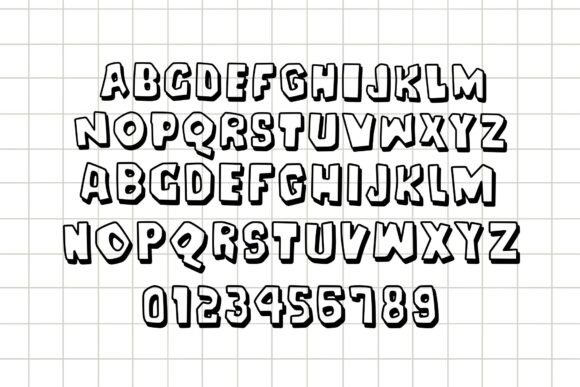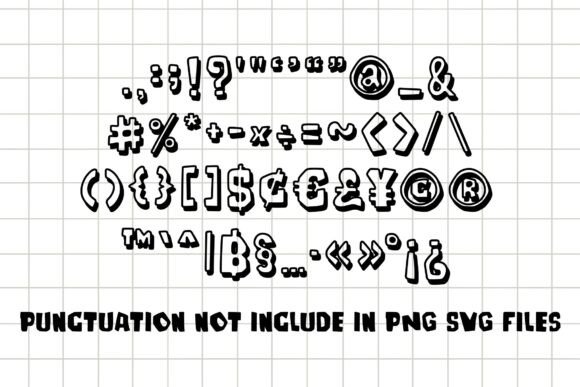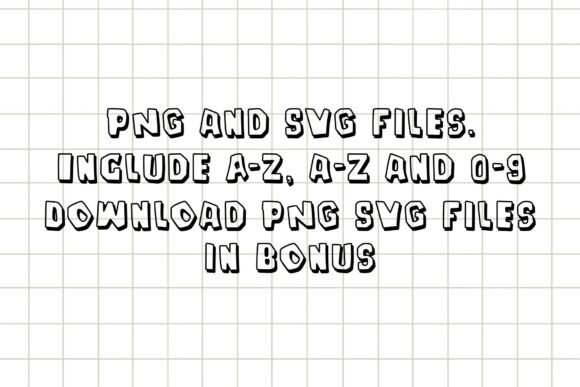
Baal Shadow Font: The Ultimate Choice for Eye-Catching Titles and Creative Projects
In the world of typography, fonts play a crucial role in conveying the tone and personality of a design. When it comes to creating eye-catching titles and creative projects, a bold and playful font can make all the difference. This is where Baal Shadow Font comes in – a chunky, hand-drawn outline font with a shadow that’s perfect for designers and crafters looking to add a touch of personality to their work.
What is Baal Shadow Font?
Baal Shadow Font is a unique and versatile font that’s designed to make a statement. Its bold, outline style with a shadow gives it a distinctive look that’s sure to grab attention. The font’s chunky, hand-drawn style makes it perfect for a wide range of creative projects, from posters and banners to stickers, invitations, t-shirt designs, and digital crafts.
Key Features of Baal Shadow Font
• Bold and Playful Style: Baal Shadow Font boasts a bold and playful style that’s perfect for creating eye-catching titles and headings.
• Chunky, Hand-Drawn Design: The font’s chunky, hand-drawn design gives it a unique and personalized look that’s sure to stand out.
• Outline with Shadow: The font’s outline style with a shadow adds depth and dimension, making it perfect for creating visually striking designs.
• Versatile and Flexible: Baal Shadow Font is versatile and flexible, making it suitable for a wide range of creative projects and applications.
Uses of Baal Shadow Font
Baal Shadow Font is perfect for designers and crafters looking to add a touch of personality to their work. Here are some of the many uses of this amazing font:
• Posters and Banners: Create eye-catching posters and banners with Baal Shadow Font that’s sure to grab attention.
• Stickers and Invitations: Use Baal Shadow Font to create fun and playful stickers and invitations that will make your friends and family smile.
• T-Shirt Designs: Design unique and stylish t-shirts with Baal Shadow Font that’s perfect for making a statement.
• Digital Crafts: Add a touch of personality to your digital crafts, such as digital planners, journals, and more.
Why Choose Baal Shadow Font?
With so many fonts available, why choose Baal Shadow Font? Here are just a few reasons why this font stands out:
• Unique and Distinctive: Baal Shadow Font is a unique and distinctive font that’s sure to make your designs stand out.
• Easily Readable: Despite its bold and playful style, Baal Shadow Font is easily readable, making it perfect for titles and headings.
• High-Quality Design: The font is designed with high-quality and precision, ensuring that it looks great in any design or application.
In conclusion, Baal Shadow Font is a bold and playful outline font with a shadow that’s perfect for eye-catching titles and creative projects. Its chunky, hand-drawn style makes it ideal for posters, banners, stickers, invitations, t-shirt designs, and digital crafts. With its unique and distinctive style, easily readable design, and high-quality construction, Baal Shadow Font is a must-have for designers and crafters looking to add a touch of personality to their work.